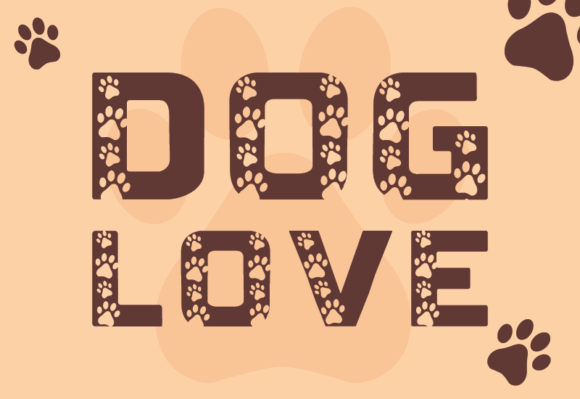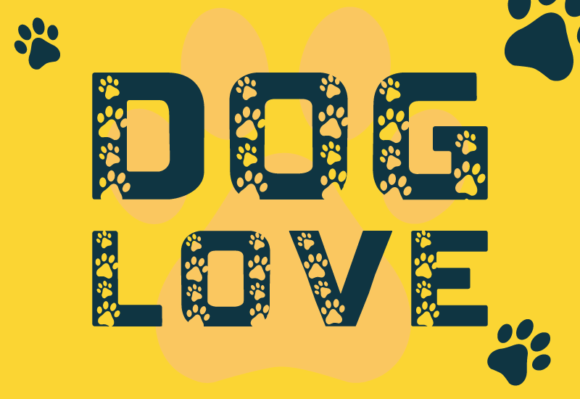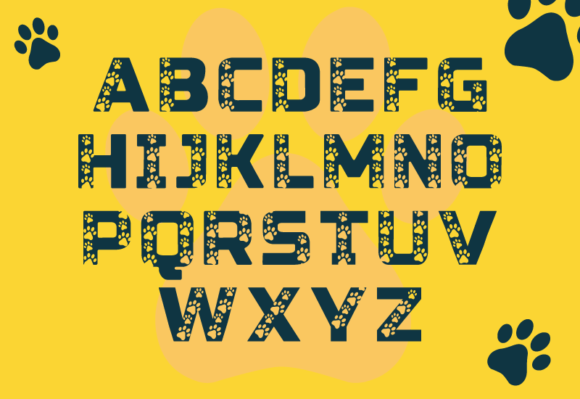
Dog Love Font
About the Dog Love Font
From logos to headlines, the Dog Love Font is the perfect choice for making a lasting impression. Introducing Dog Love Font – a vibrant blend of simplicity and contemporary style. This modern, decorative typeface shines in its versatility, proving an impeccable fit for ambitious logos, innovative brand designs, striking headlines, and various other creative endeavors. Unleash this font into your projects with conviction and let its exceptional performance leave you in awe of the transformative outcomes achieved.
Dog Love Font’s playful yet modern personality makes it ideal for headlines, branding projects needing a touch of whimsy, and packaging designs for products targeting a young, vibrant audience. It also works well in short-form content like posters or social media graphics. However, its decorative nature makes it less suitable for body text or UI elements where readability is paramount. Extended use could strain readability.
Consider pairing Dog Love Font with a clean sans-serif like Lato for body copy to create visual balance. For a more sophisticated feel, a classic serif such as Garamond could provide a refined counterpoint. Alternatively, a geometric sans-serif like Futura could emphasize the font’s modern aspects.
The overall mood is upbeat and friendly, lending itself to brands focused on fun, creativity, or pet-related businesses. Avoid using it for projects requiring a serious or formal tone.
Dog Love Font Usage Examples
Dog Love Font Example